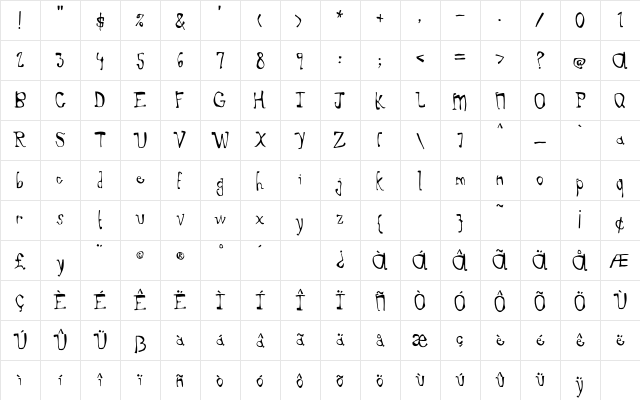
Doghouse Medium Free Font
Doghouse Medium
Design Context for Doghouse
Doghouse is a composed and adaptable typeface that performs quietly and consistently across a wide range of design contexts.